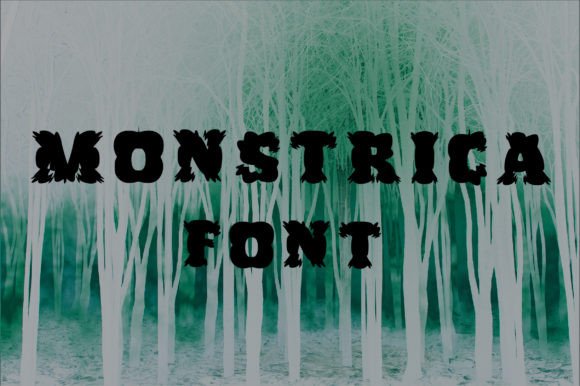
Introducing Monstrica Font, the ultimate Halloween-themed display font that adds an eerie touch to any project, leaving your audience spellbound. With its captivating monster hair effects adorning each character, Monstrica Font brings a captivating visual element that perfectly embodies the spooky spirit of Halloween.
Unleash your creativity with Monstrica Font, the perfect font for those seeking to create hauntingly beautiful designs for Halloween parties, Ghost Night extravaganzas, t-shirt designs that make a statement, covers that send shivers down the spine, and posters that keep you company in the darkest of nights. Get ready to cast a spell on your audience with this bewitching font.
But Monstrica Font's powers extend beyond the realm of Halloween. Its spine-chilling aesthetics make it an ideal choice for projects seeking a touch of horror and mystery. Book covers, horror-themed posters, and movie titles will take on a life of their own when adorned with Monstrica Font, captivating readers and viewers alike.